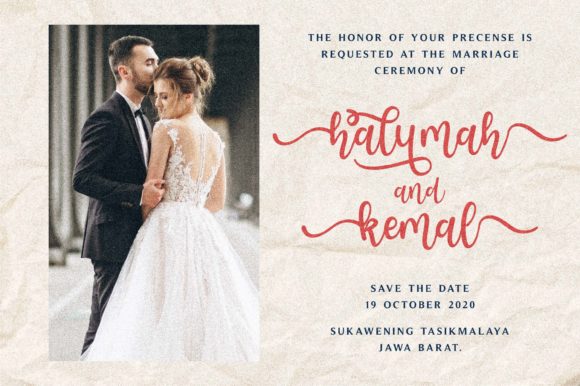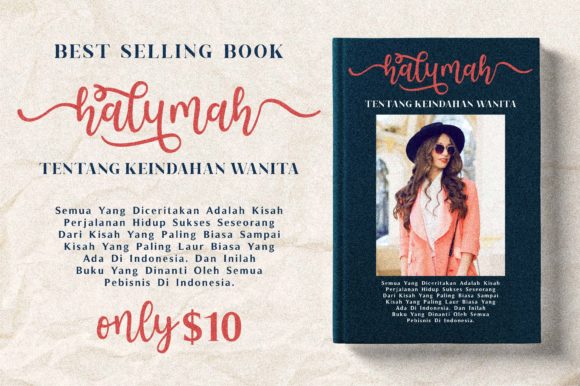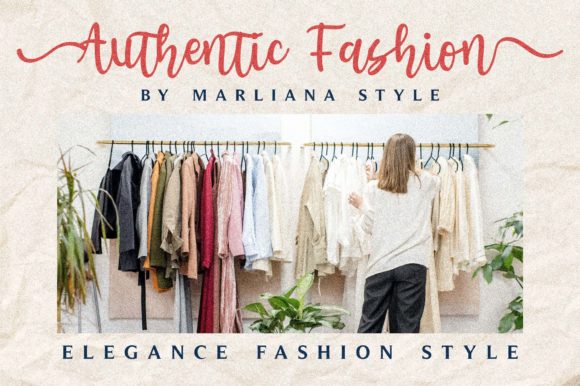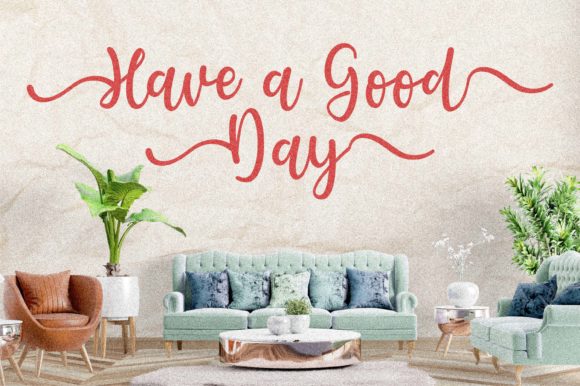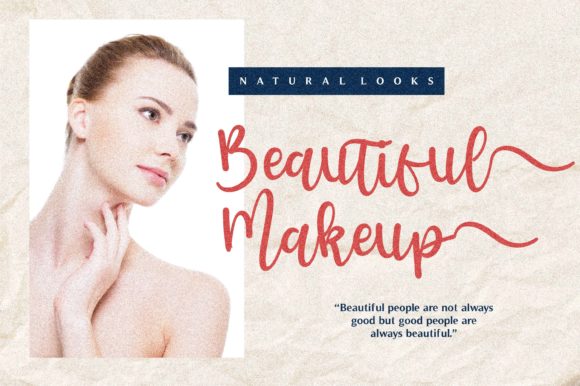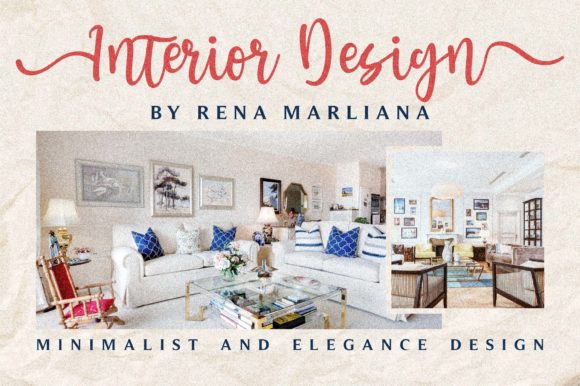
Introducing Halymah Font: A Timeless Handwritten Elegance
Are you a designer or crafter looking for a unique and elegant handwritten font to elevate your creative projects? Look no further than Halymah Font, an incredibly distinct, delicate, and timeless handwritten font that is sure to capture the hearts of your audience. In this article, we’ll dive into the world of Halymah Font, exploring its features, uses, and benefits, and why it’s a must-have for any creative professional.
A Distinct and Delicate Handwritten Font
Halymah Font is a beautifully crafted handwritten font that exudes elegance and sophistication. Its delicate strokes and intricate details make it a standout among other fonts, perfect for adding a touch of personality to your designs. Whether you’re working on wedding invitations, thank you cards, quotes, greeting cards, logos, business cards, or any other design that needs a handwritten touch, Halymah Font is the perfect choice.
One of the best things about Halymah Font is its versatility. It’s suitable for a wide range of design projects, from romantic wedding invitations to stylish business cards. The font’s classic and timeless look makes it easy to pair with other design elements, ensuring that your projects look polished and professional. Here are some ideas for using Halymah Font:
- Quotes and typography art
Halymah Font is PUA (Private Use Area) encoded, which means that you can access all of the glyphs and swashes with ease. This feature makes it easy to customize your designs and add unique touches to your projects. With PUA encoding, you can:
- Access a wide range of glyphs and swashes
- Easily customize your designs
- Add unique touches to your projects
So, why should designers and crafters choose Halymah Font for their projects? Here are just a few benefits:
- Elegance and sophistication: Halymah Font adds a touch of elegance and sophistication to any design project.
- Versatility: The font is suitable for a wide range of design projects, from wedding invitations to business cards.
- Easy to use: Halymah Font is PUA encoded, making it easy to access and customize.
- Unique and distinctive: The font’s delicate strokes and intricate details make it a standout among other fonts.
In conclusion, Halymah Font is a timeless handwritten font that is sure to elevate your design projects to the next level. Its delicate strokes, intricate details, and PUA encoding make it a versatile and easy-to-use font that’s perfect for designers and crafters. Whether you’re working on wedding invitations, business cards, or any other design project, Halymah Font is a must-have font that will add a touch of elegance and sophistication to your work.